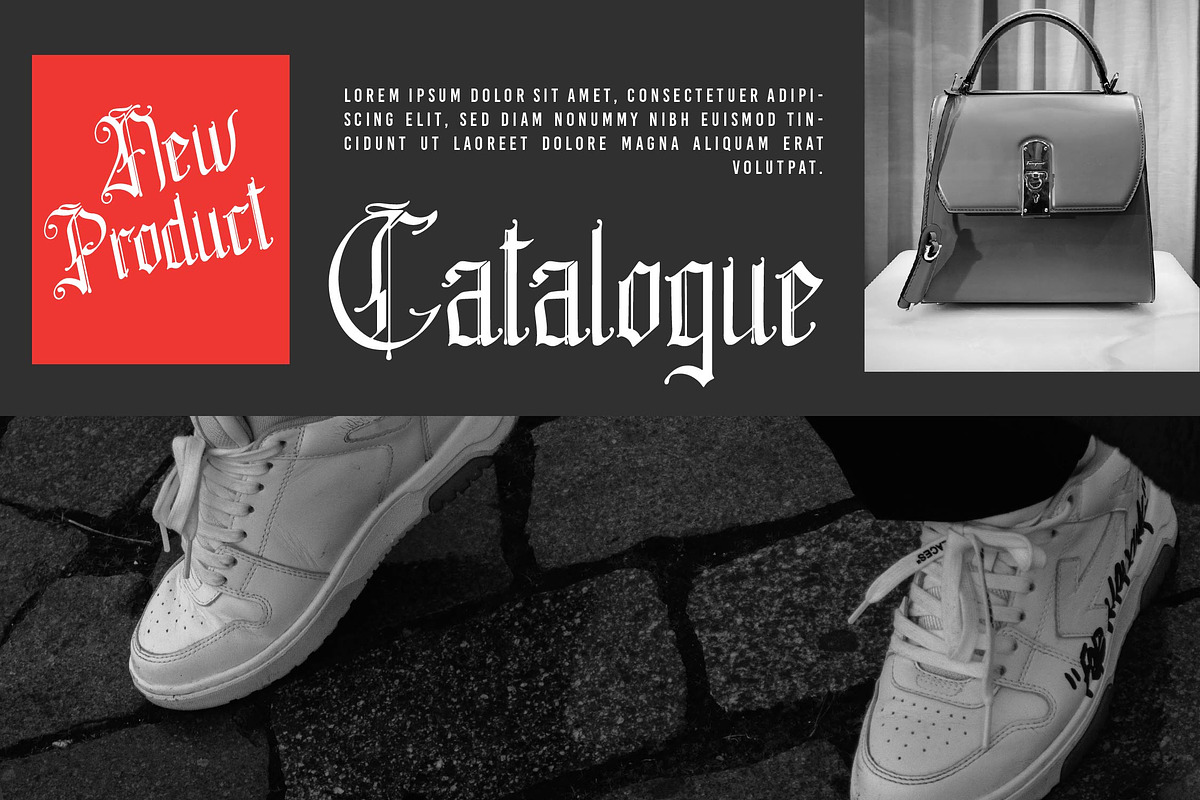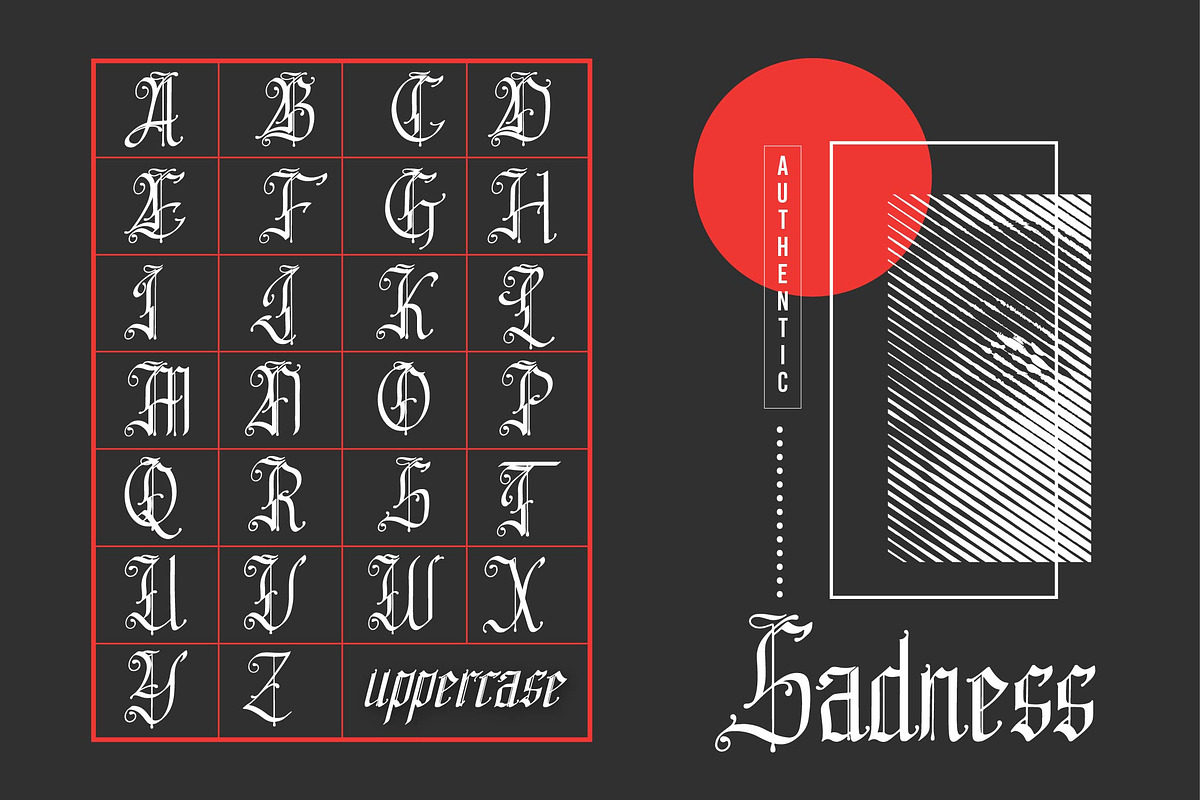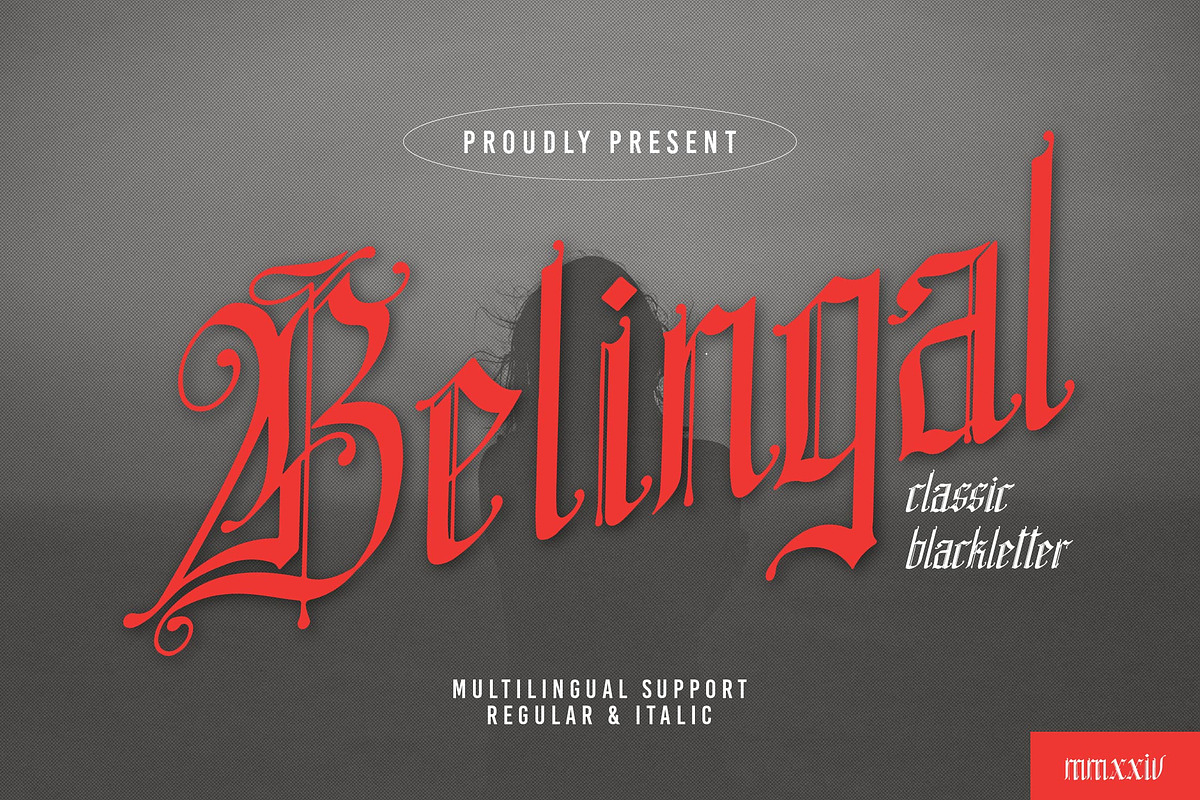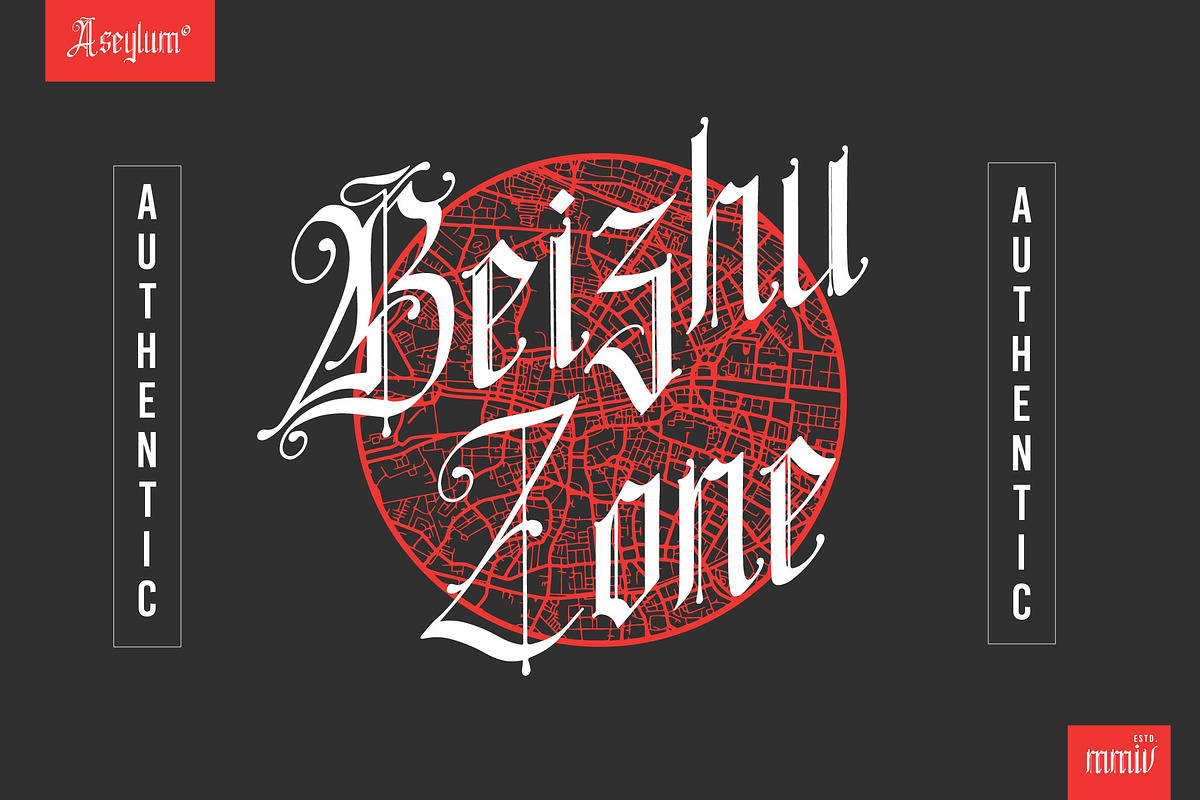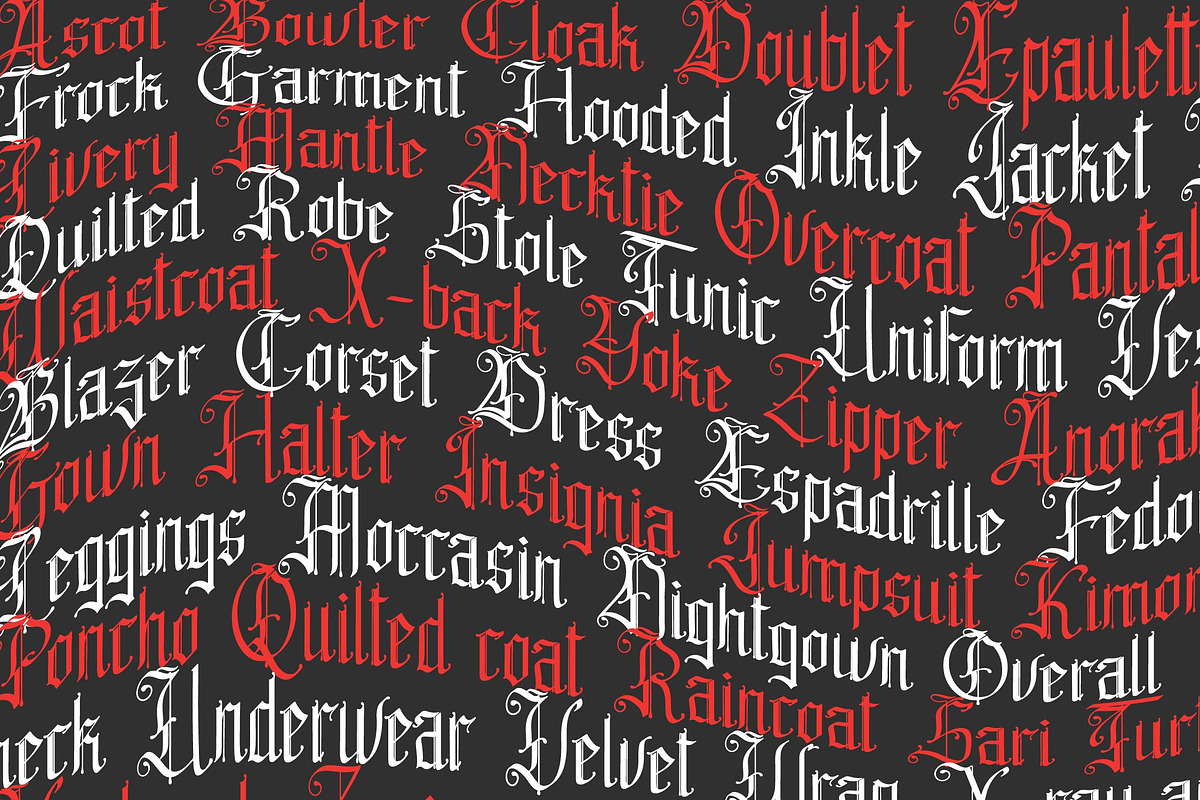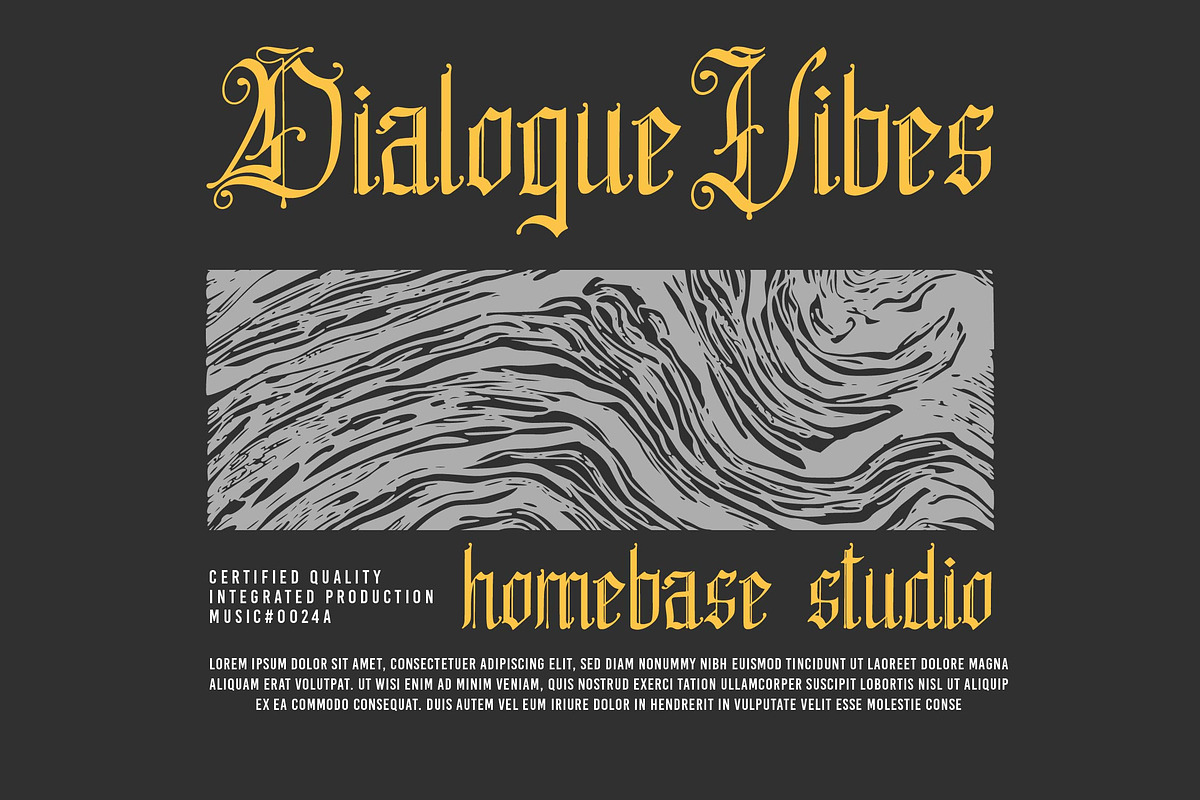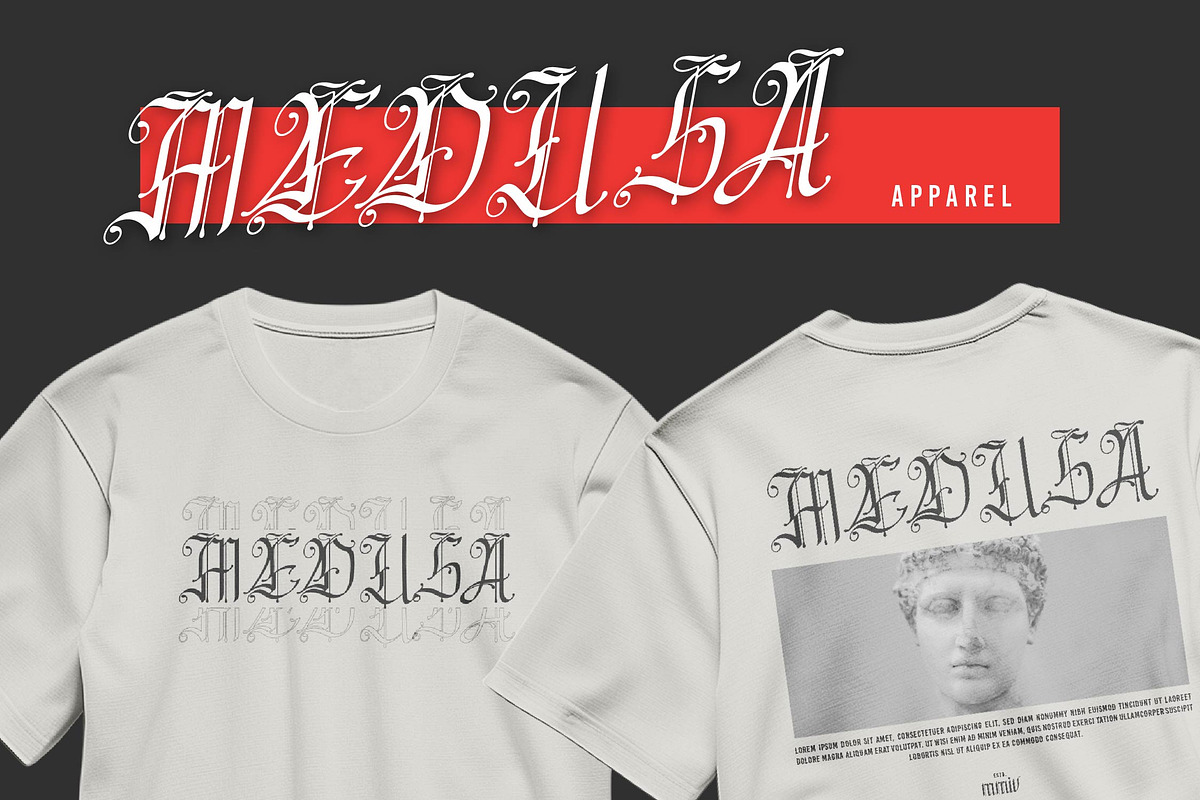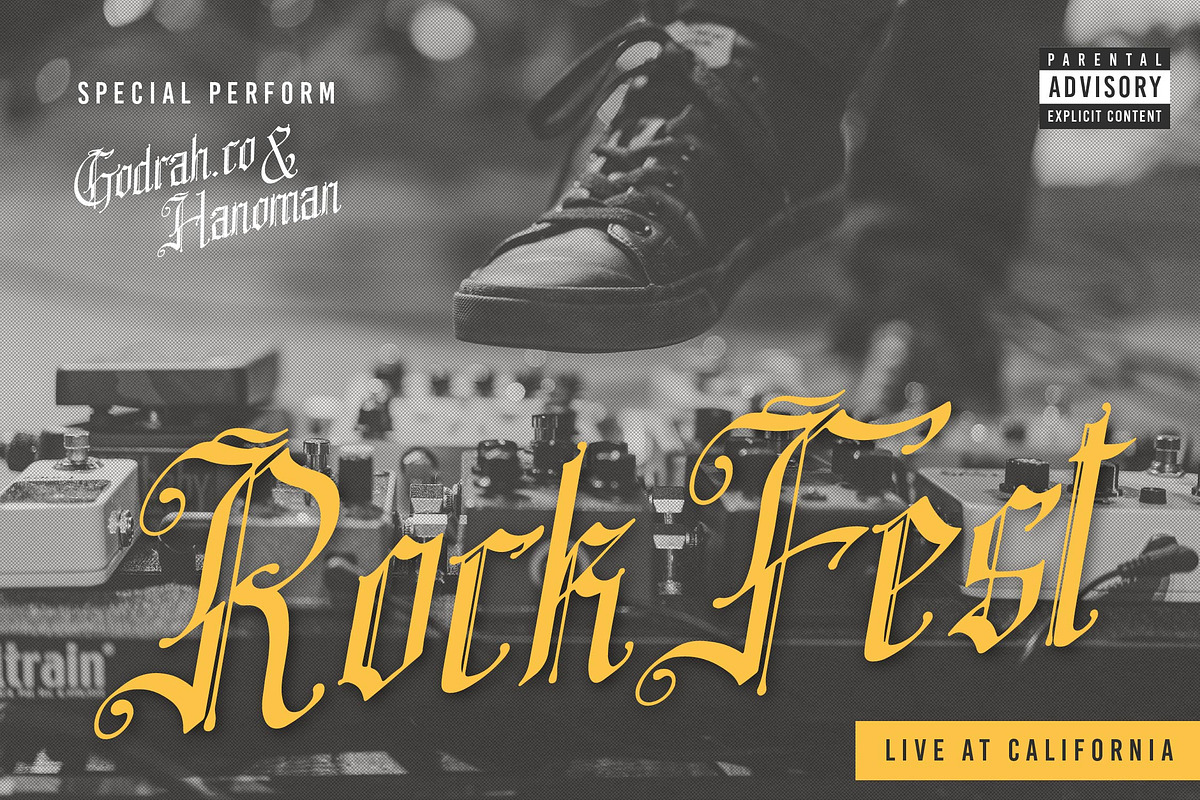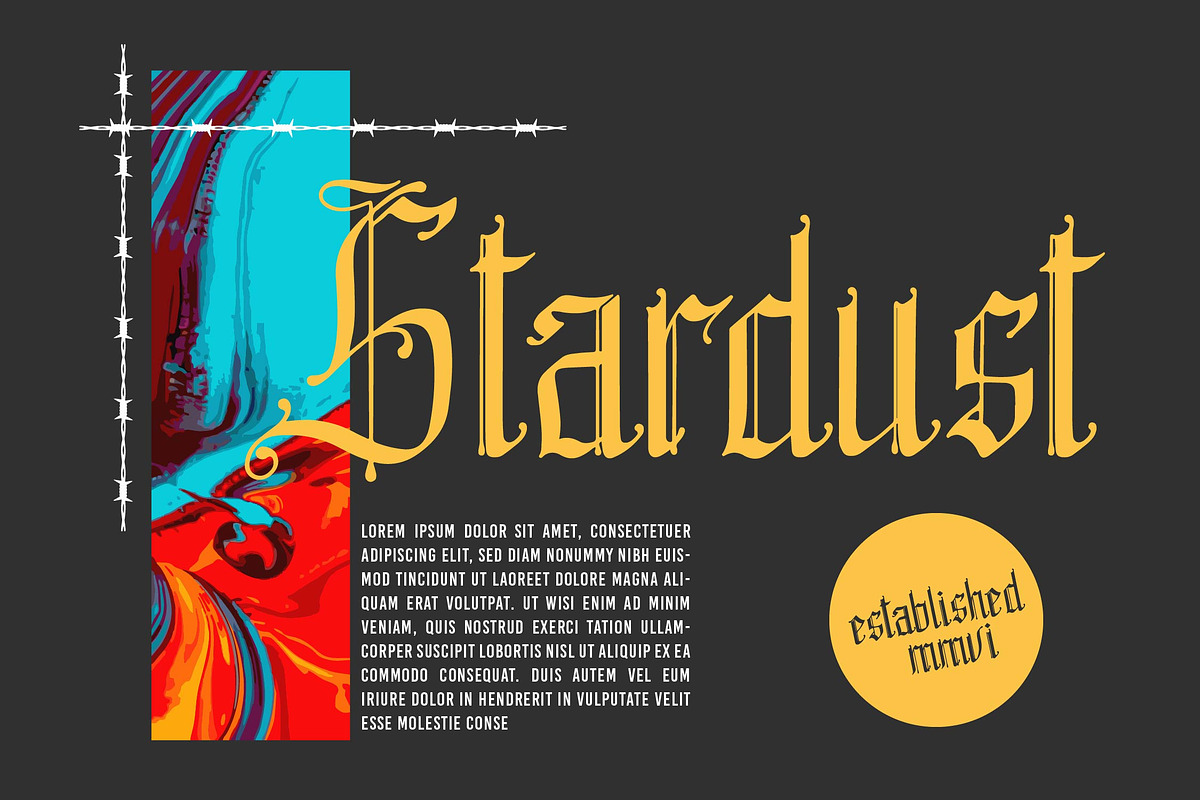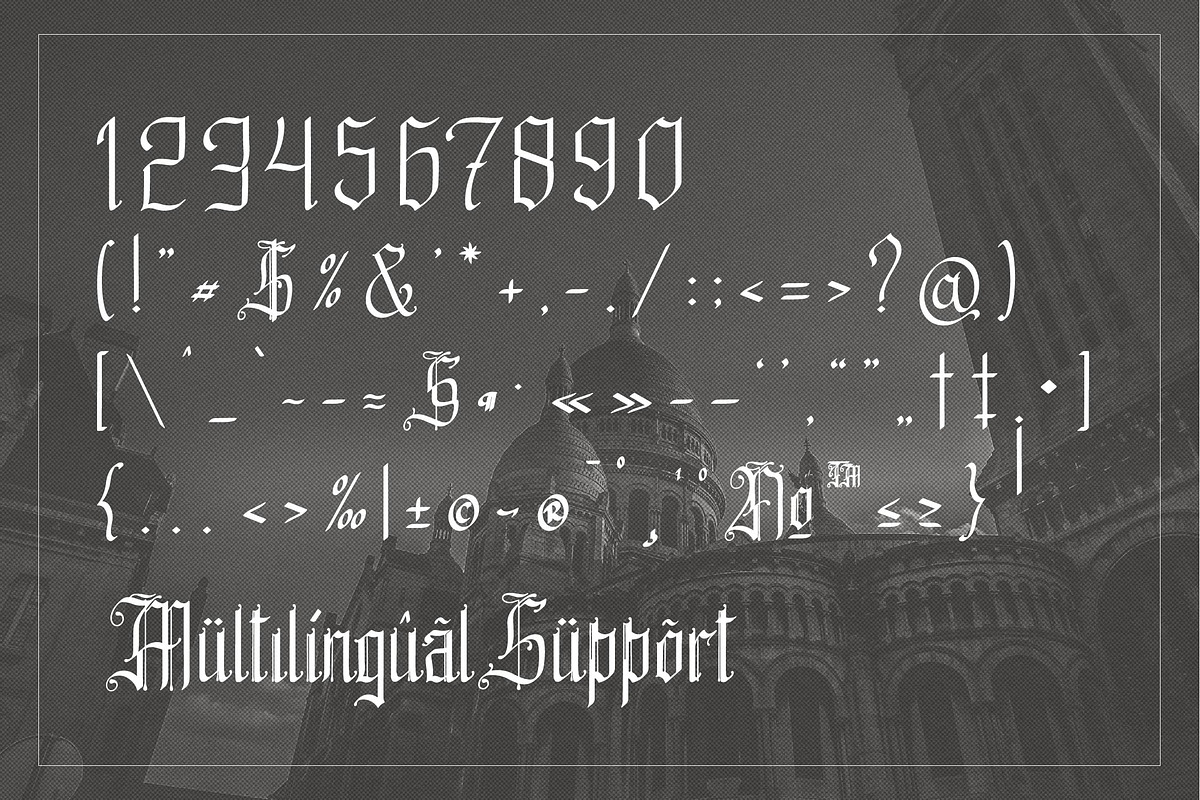
Belingal | Classic Blackletter
Belingal | Classic Blackletter, from Denustudios, suitable for any projects such as: logos, branding projects, homeware designs, product packaging, mugs, quotes, posters, shopping bags, t-shirts, book covers, name card, invitation cards, greeting cards, label, photography, watermark, special events, and all your other lovely projects that need a Classic Blackletter taste.